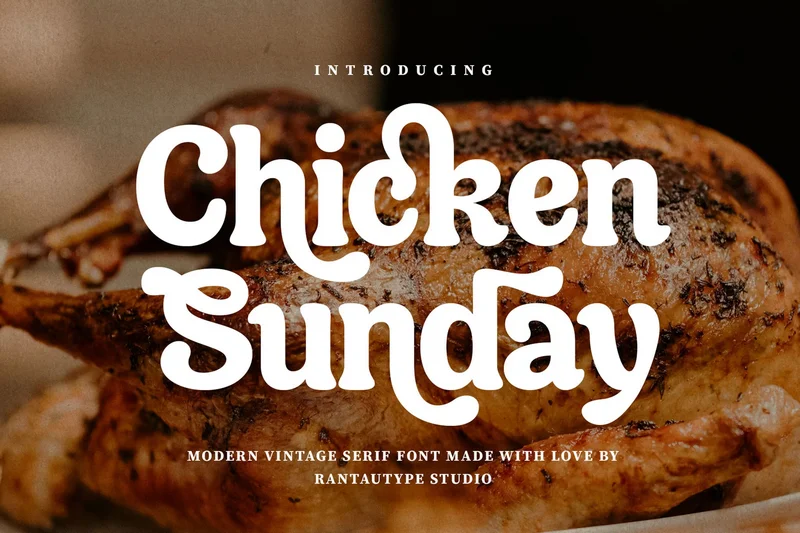
Chicken Sunday Modern Vintage Font
Chicken sunday is a perfect harmony between classic charm and contemporary design. It blends the nostalgic beauty of traditional serif lettering with smooth, rounded edges that give it a fresh, approachable feel. Chicken sunday come with curve and serif stroke carries a sense of craftsmanship, evoking the timeless elegance of vintage typography while maintaining the clarity and balance needed for modern use.
Chicken sunday is a perfectly choice for any creative endeavor, chic, lifestyle design such as logotype, advertisements, watermark on photography, stationery, branding project, display and magazine, invitation, corporate brand, product design, label, business project and many other project with modern touch.
Alternate and Ligature